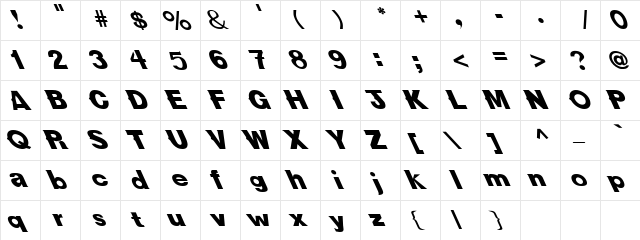
New Bold Extreme Lefti Regular
Design Context for New Bold Extreme Lefti Typeface
New Bold Extreme Lefti is a composed and adaptable typeface that performs quietly and consistently across a wide range of design contexts. Its bold stroke weight gives it real presence on the page.